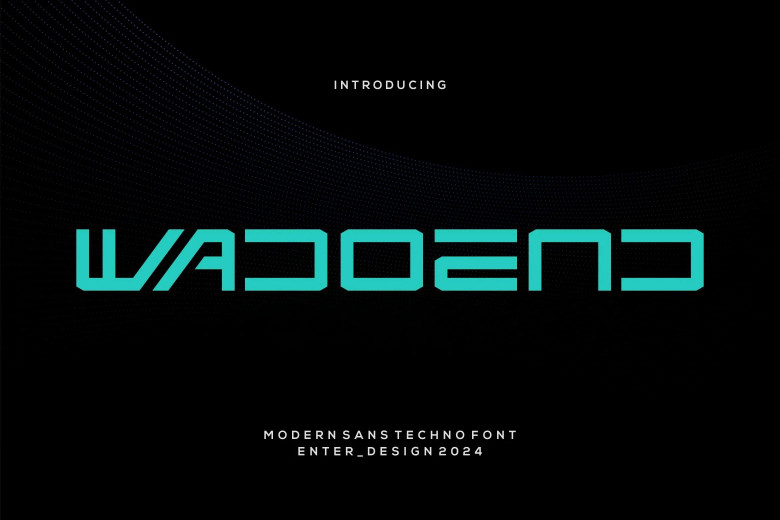
Wadoend Font
Wadoend is a Modern font is a display font style, which feels reliable and highly authoritative. The font is ideal for any branding works like Logo, esports, etc, moreover, the font looks great in many circumstances.
Wadoend Display Font